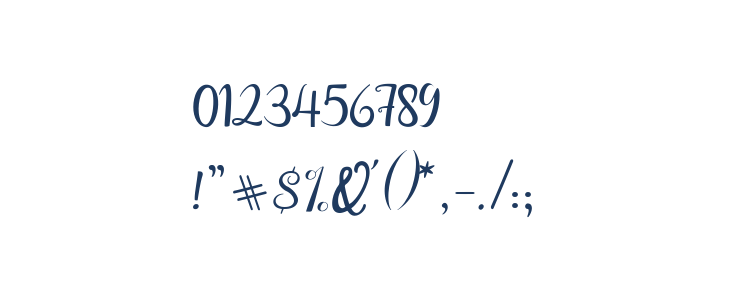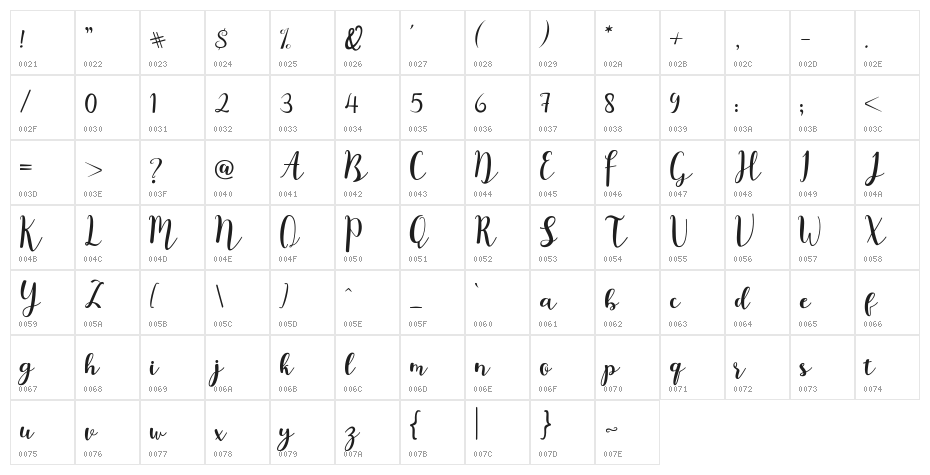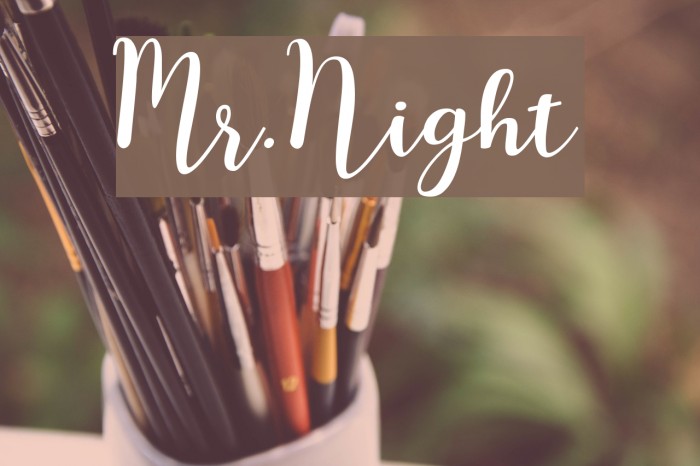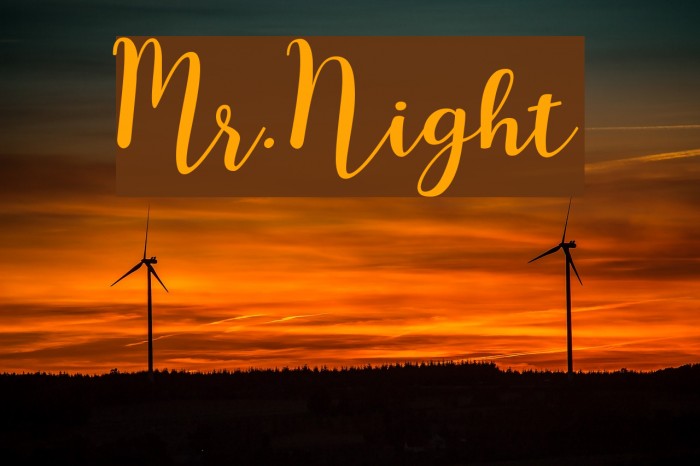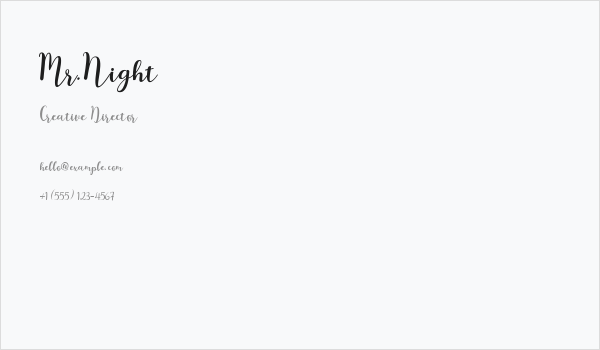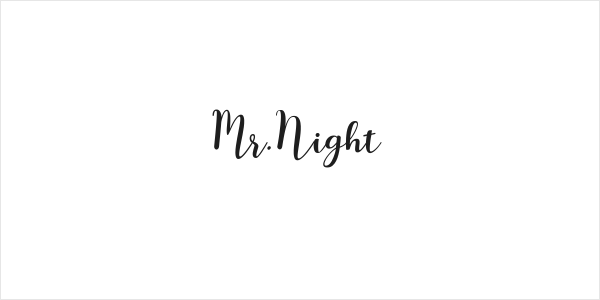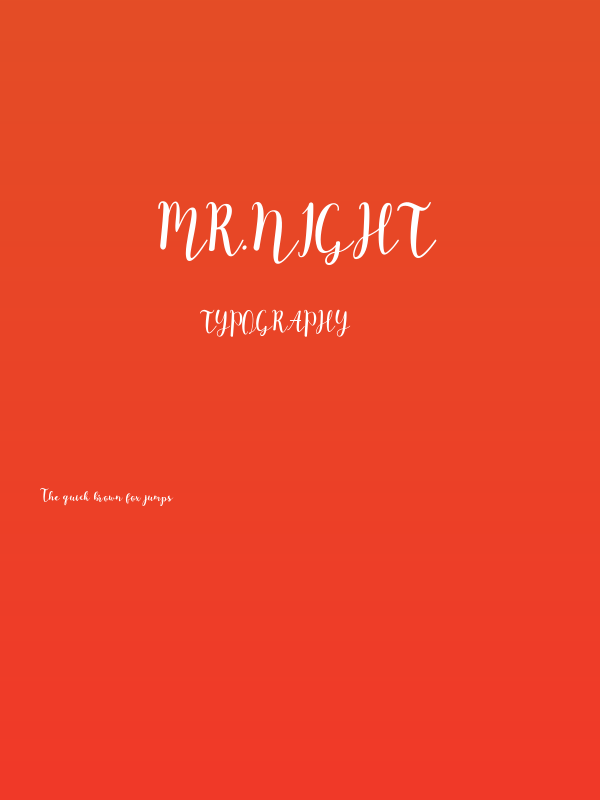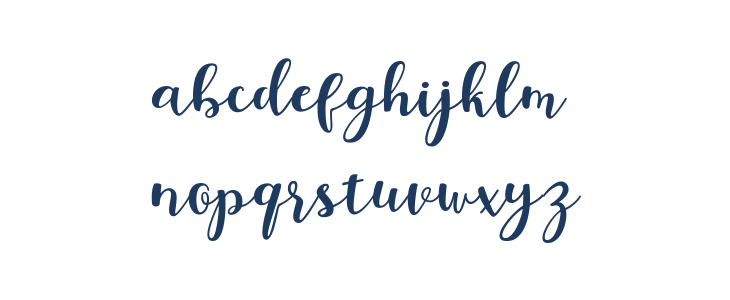
Mr.Night Font
Mr.Night Description
This font features a flowing, cursive style with elegant, sweeping strokes that give it a handwritten appearance. The uppercase letters are characterized by their tall, graceful loops and flourishes, while the lowercase letters maintain a consistent, smooth flow. The numerals and special characters complement the alphabet with similar stylistic elements, ensuring a cohesive look. The overall design exudes a sense of sophistication and charm, making it suitable for projects that require a personal, artistic touch.
| Proposed Projects | Ideal for wedding invitations, greeting cards, personal branding, and artistic projects. |